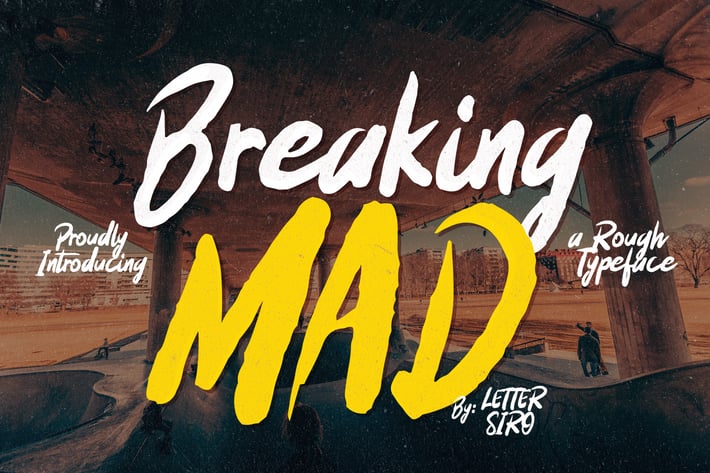
Breaking Mad Font
Breaking Mad is a handmade font, Natural, and Full of Spirit. Breaking Mad is great for Branding, Logo Design, Lettering, Clothing, Poster and others.
- Opentype Features (Ligature, Alternate)
- Multilingual Support ( Danish,Finnish,English, Spanish,Dutch,German,Icelandic,Italian, Norwegian,Portuguese,Indonesian, Swedish)